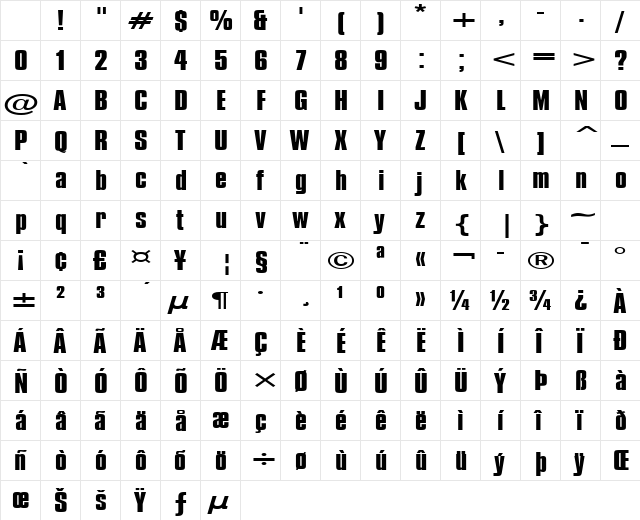
Complete CommadorExtended Normal glyph index. Displaying only characters natively supported by CommadorExtended Normal font.
CommadorExtended is a composed and adaptable typeface that performs quietly and consistently across a wide range of design contexts.